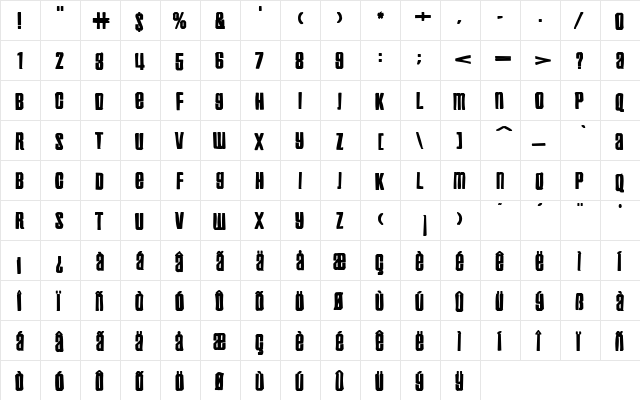
Inflammable Age Ink Regular
Design Context for Inflammable Age Ink Typeface
Inflammable Age Ink offers clean, dependable letterforms without strong stylistic allegiance, making it a practical choice for designers who need flexibility.